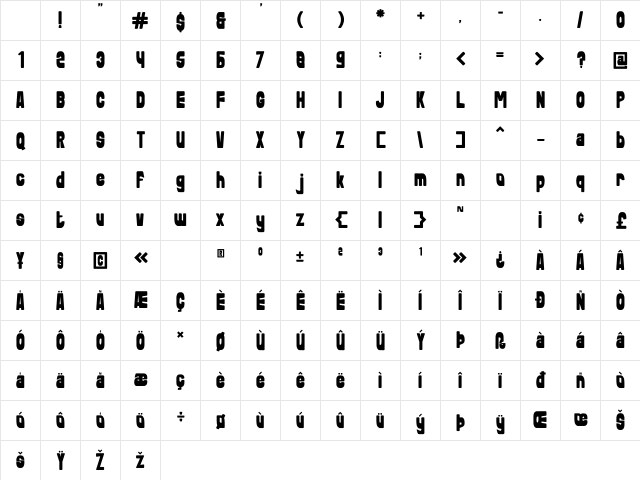
Complete Happy Chunk Regular glyph index. Displaying only characters natively supported by Happy Chunk Regular font.
Happy Chunk is a composed and adaptable typeface that performs quietly and consistently across a wide range of design contexts.